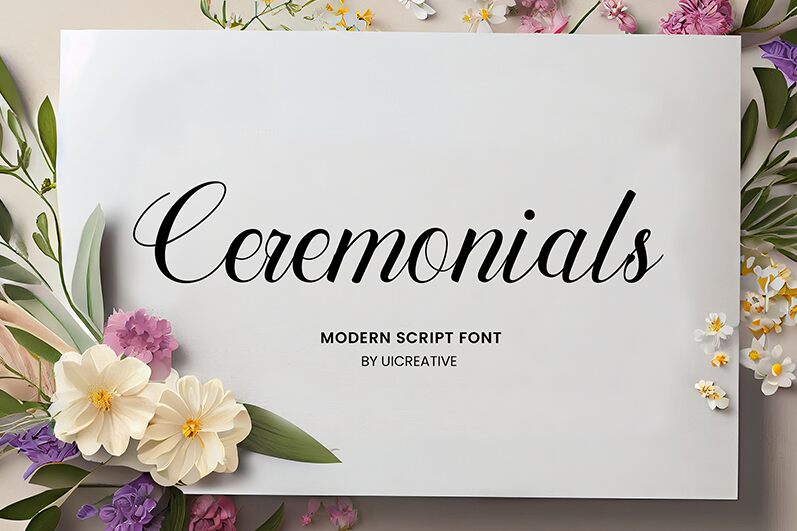
Ceremonials
Ceremonials, a captivating calligraphic font crafted by UI Creative, exudes an air of elegance and sophistication. Its flowing, expressive strokes seamlessly blend traditional penmanship with a modern sensibility, creating a visually striking and emotive typographic experience. The font's intricate flourishes and delicate balance between thick and thin lines evoke a sense of refined artistry, making it an alluring choice for projects seeking to convey a sense of timeless sophistication.
This versatile font lends itself well to a variety of design applications, from luxury branding and editorial layouts to wedding invitations and event materials. Its calligraphic flair and distinctive character make it an ideal selection for projects that require a touch of elegance and refinement, whether in print or digital mediums.